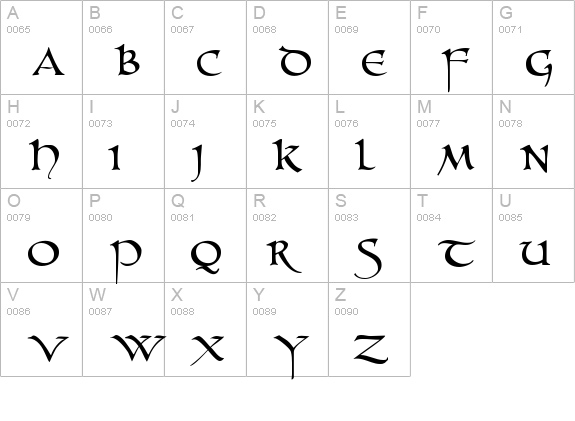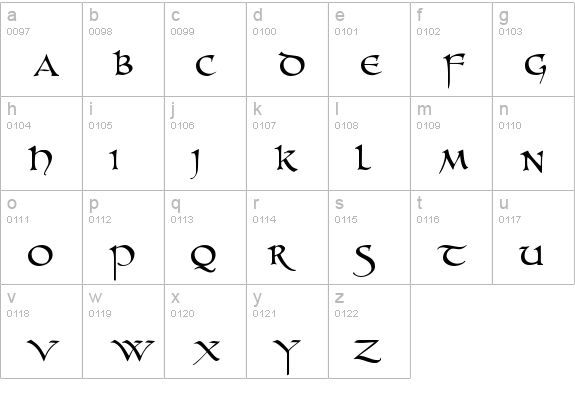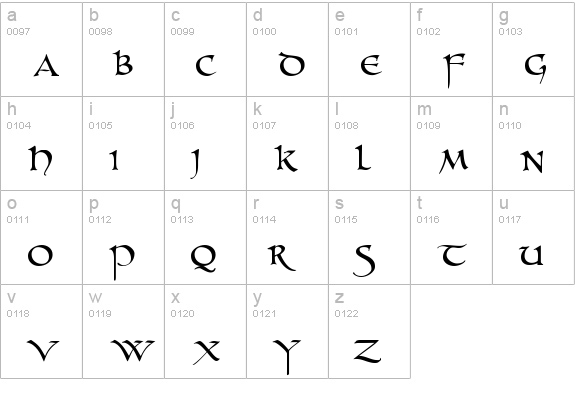
UnZialish Font Details
Introducing UnZialish, a stunningly unique and captivating font that effortlessly combines elegance and playfulness. With its intricate and fluid letterforms, UnZialish is sure to grab attention and leave a lasting impression on your audience. This one-of-a-kind font is meticulously crafted to embody the essence of creativity and individuality. Its curvaceous strokes and dynamic serifs bring a sense of energy and movement to your designs, making them truly stand out from the crowd. Whether you're designing a logo, creating eye-catching headlines, or crafting beautiful invitations, UnZialish is the perfect choice to add that extra touch of sophistication and charm. What's more, UnZialish is available for free! Yes, you read that right. This extraordinary font can be freely downloaded from FontsMarket.com, allowing you to explore its limitless possibilities without any constraints. Now, you can effortlessly elevate your design projects without breaking the bank. UnZialish is a versatile font that can be used across a wide range of creative projects. Its legibility and distinctiveness make it suitable for both digital and print applications, ensuring that your message is delivered with clarity and impact. Whether it's for branding, advertising, packaging, or even personal projects, UnZialish has the versatility to adapt to any design landscape. So, why wait? Unleash your creativity and elevate your designs with UnZialish. Download this exceptional font for free at FontsMarket.com and embark on a journey of artistic expression like never before. It's time to make a statement and leave your mark with UnZialish.